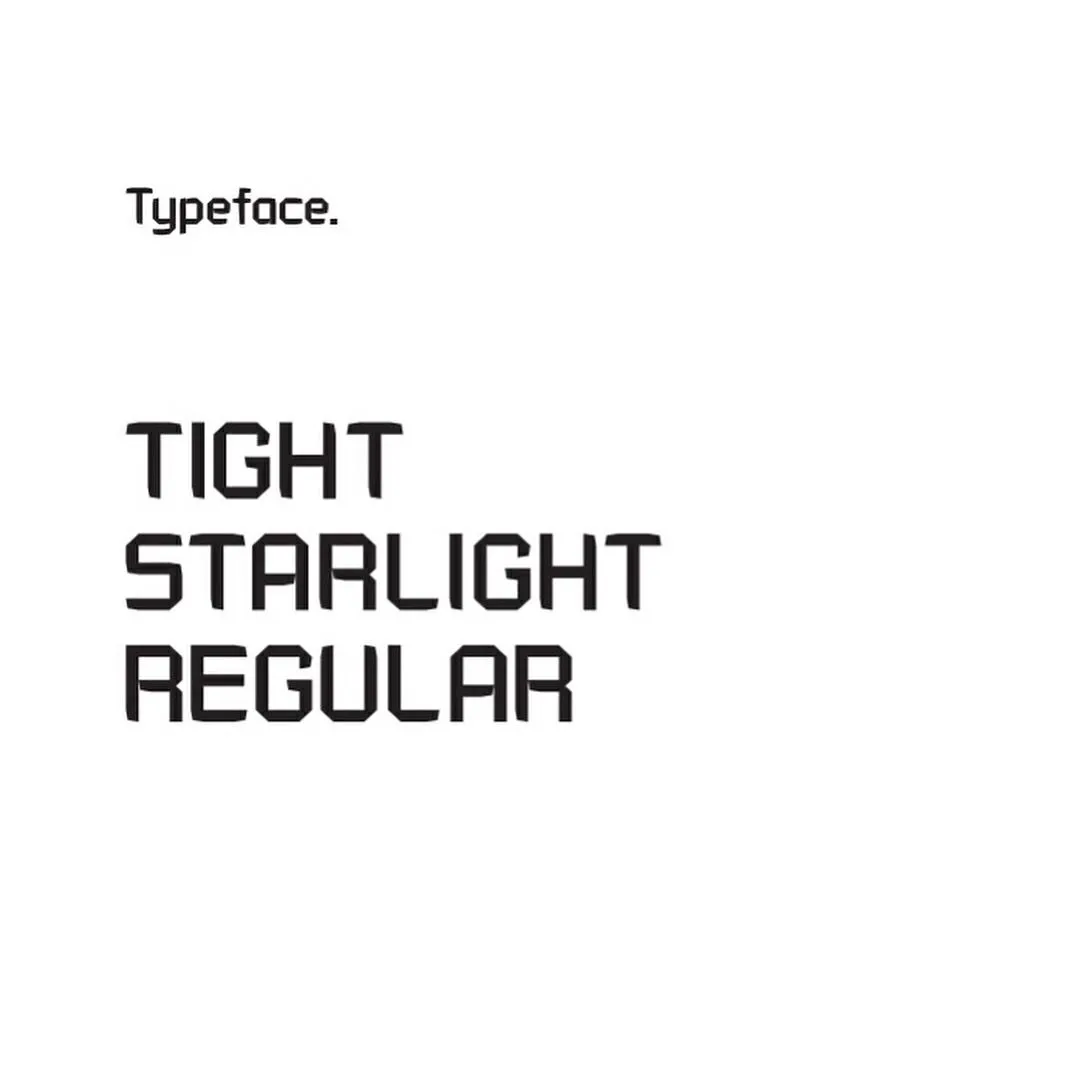
2018 I will make a brand. The Name is ‘tight.inspired’. It’s mean is very nice inspiration. It’s coming up on this spring. So i made a typeface for brand ‘tight’. Typeface name is ‘starlight’’. I want seems like twinkle star. #tight #fashion #brand #brandnew #starlight #font #regular #typeface #bandygarnet